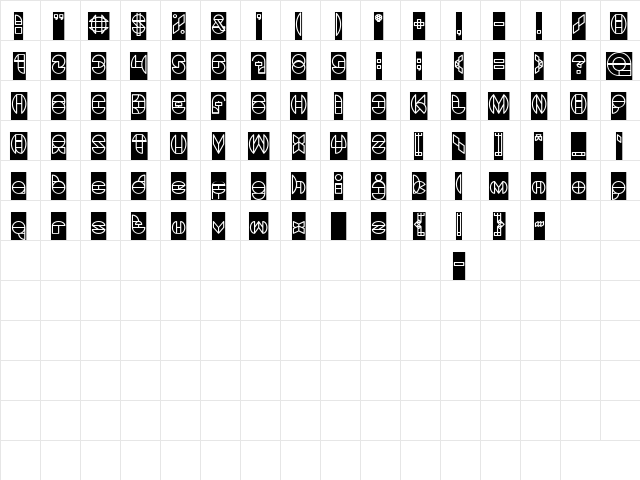
DRAGON FLY-Inverse Regular
Design Context for DRAGON FLY-Inverse Typeface
DRAGON FLY-Inverse is a composed and adaptable typeface that performs quietly and consistently across a wide range of design contexts.
Pro Tip: Use DRAGON FLY-Inverse in both headline and body roles to test its range before committing to a single application.